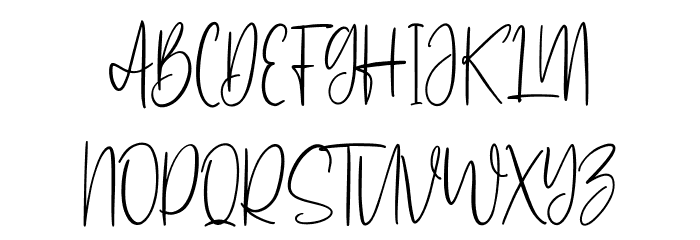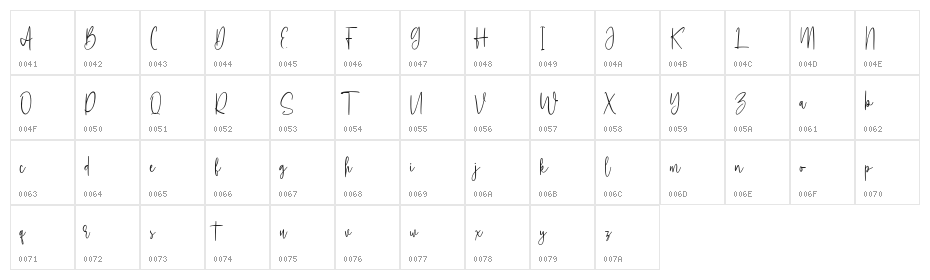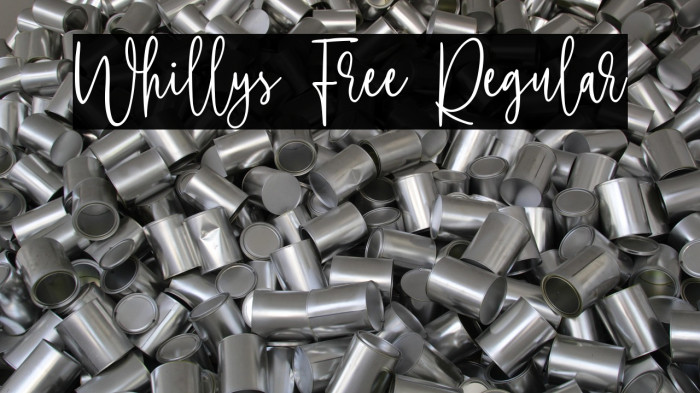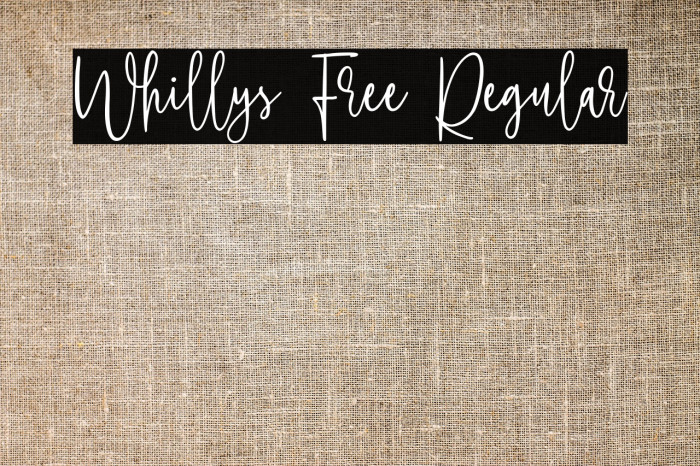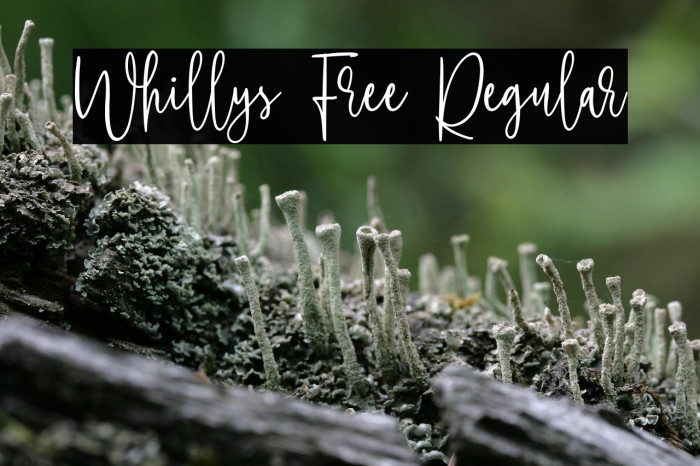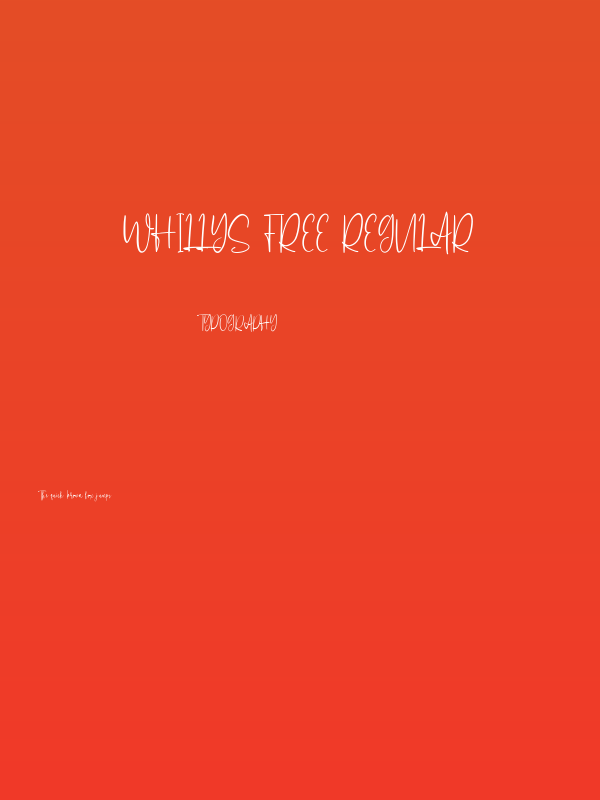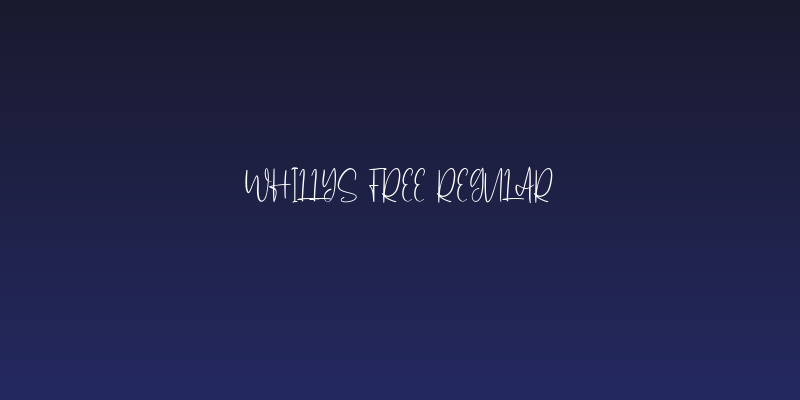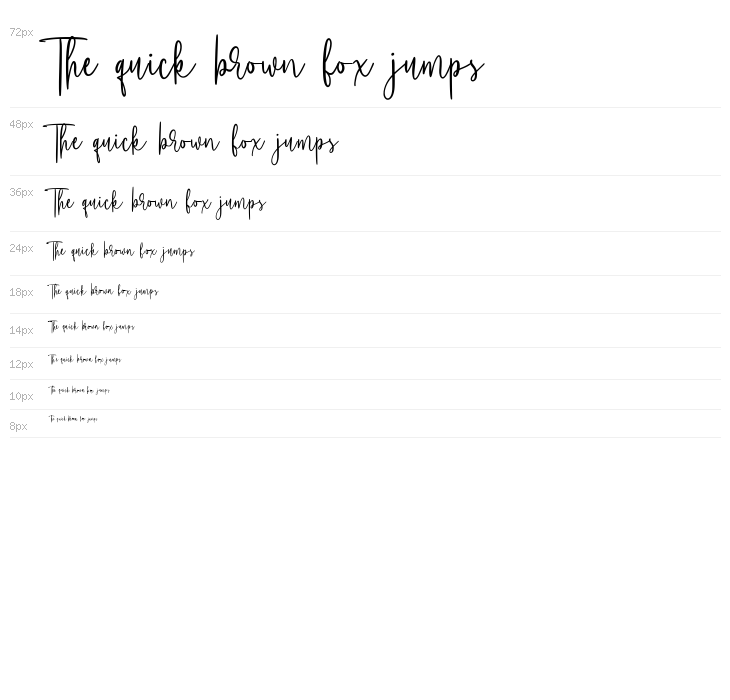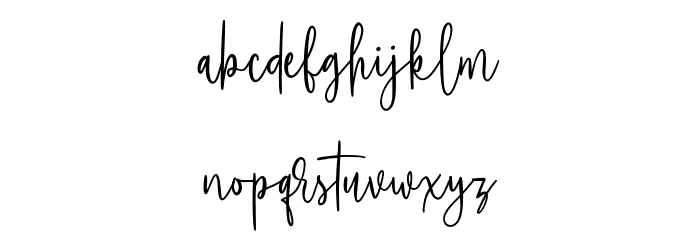
Whillys Free Regular Font
Whillys Free Regular Description
This font features a playful and casual handwritten style with a modern twist. The uppercase letters are tall and narrow, with a slight slant that adds a dynamic feel. The lowercase letters are more fluid and connected, resembling a cursive script. The strokes are consistent in thickness, giving it a clean and polished look. The overall design is elegant yet approachable, making it suitable for a variety of creative projects. The font's unique character is enhanced by its smooth curves and flowing lines, which contribute to its friendly and inviting appearance.